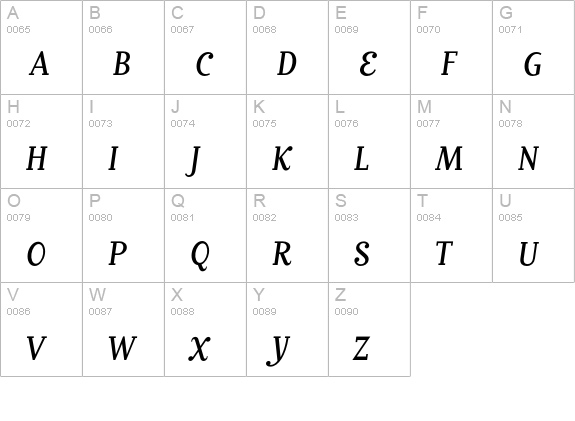
MatrixScriptRegular Font Details
MatrixScriptRegular font is a modern and sleek typeface that combines elements of technology and sophistication. Its clean lines and futuristic design make it perfect for projects that require a contemporary aesthetic. This font is versatile and can be used for a variety of design purposes, from branding to web design. The best part is that MatrixScriptRegular font is available for free download at FontsMarket.com. You can easily add this stylish font to your collection without any cost. Don't miss out on the opportunity to enhance your designs with this unique and eye-catching typeface. Download MatrixScriptRegular font today and take your projects to the next level!